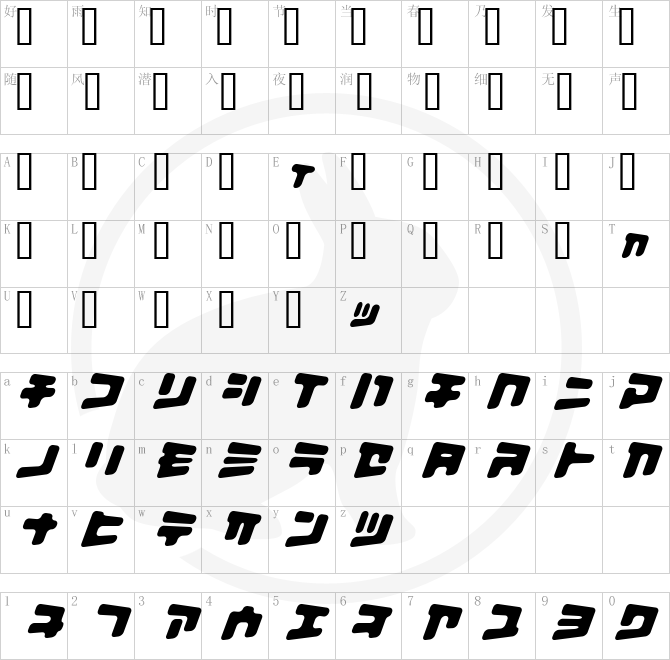
- Font Name:I2BiscuiBank
I2Biscui-Bank-R.ttf is a very beautiful artistic font, I2Biscui-Bank-R.ttf is widely used in the design and printing of various books and pictures,I2Biscui-Bank-R.ttf has a strong visual impact,I2Biscui-Bank-R.ttf is a commonly used font in newspapers, magazines and books, and is used in posters, e-commerce Poster design, store design, logo design, font design and other fields.I2Biscui-Bank-R.